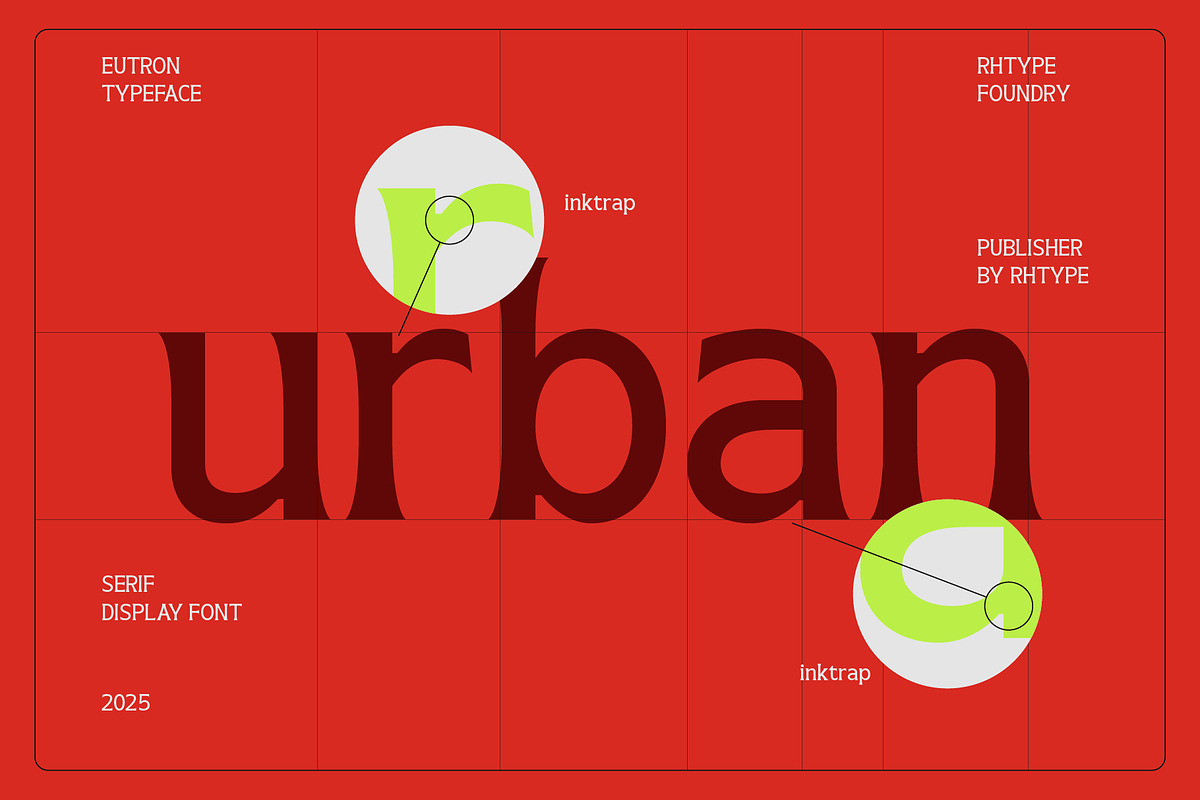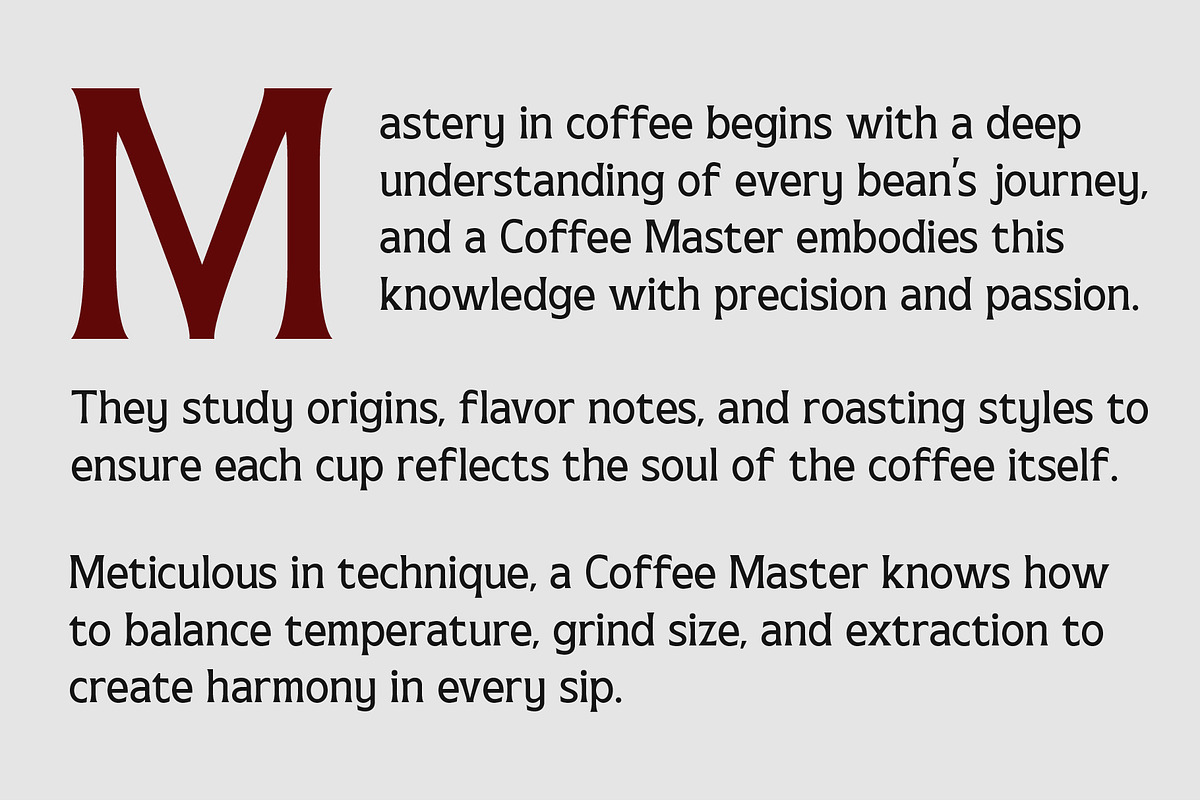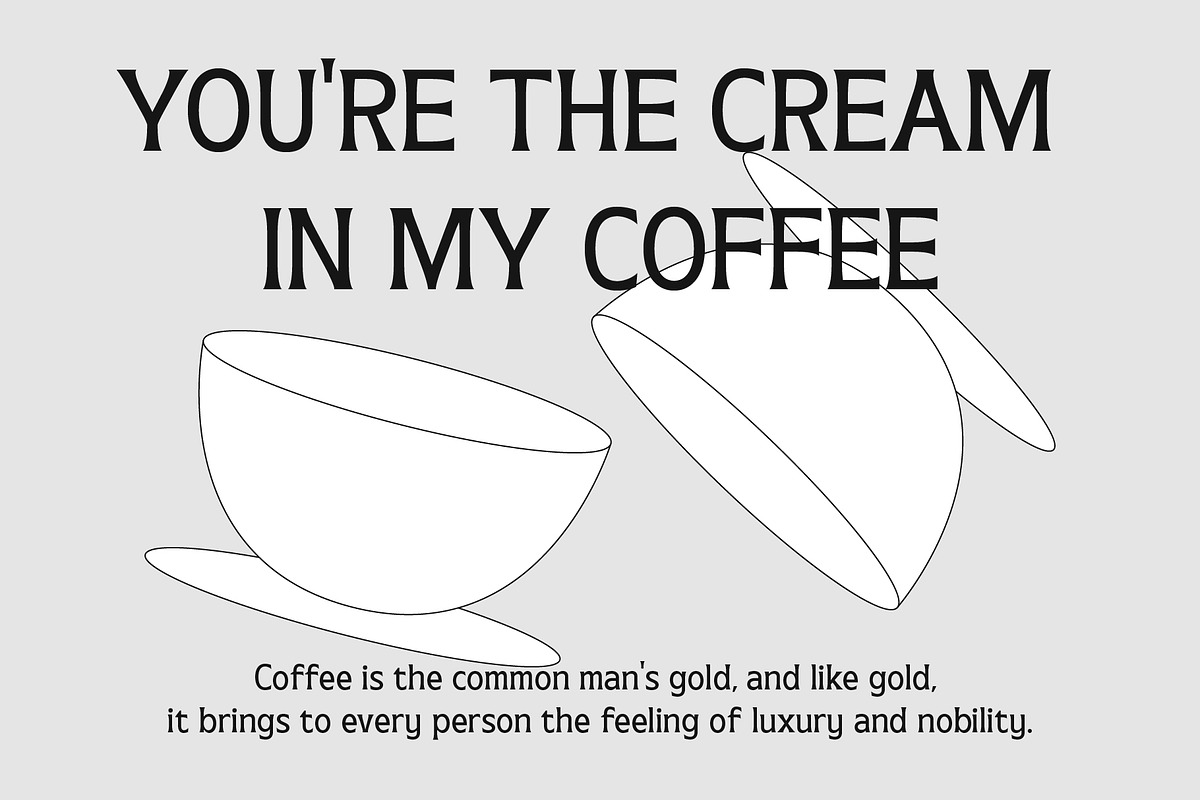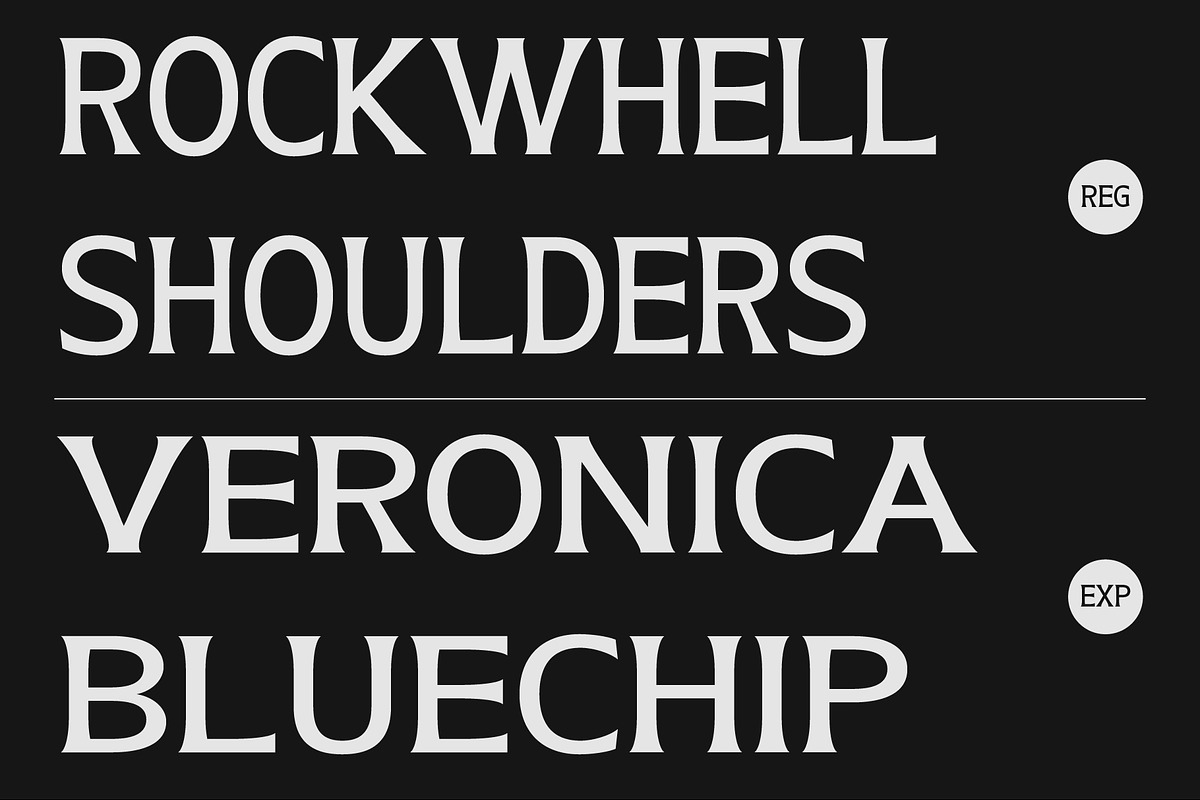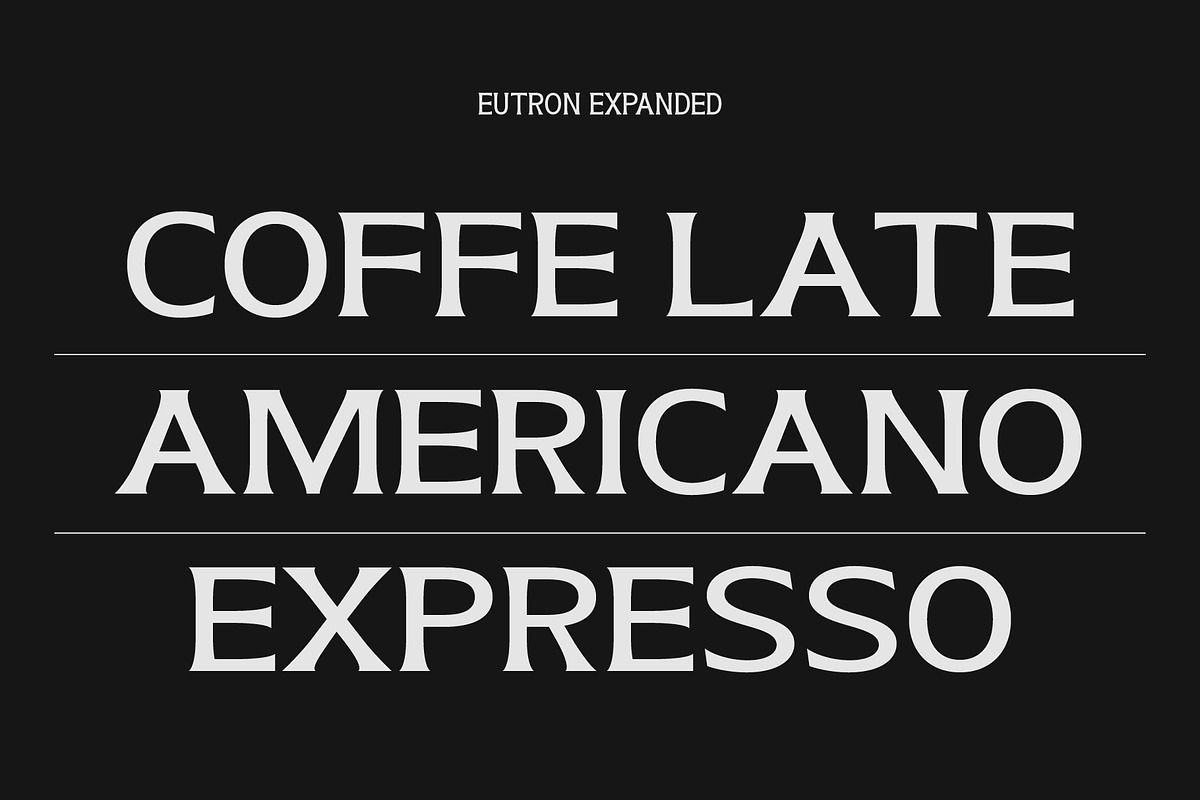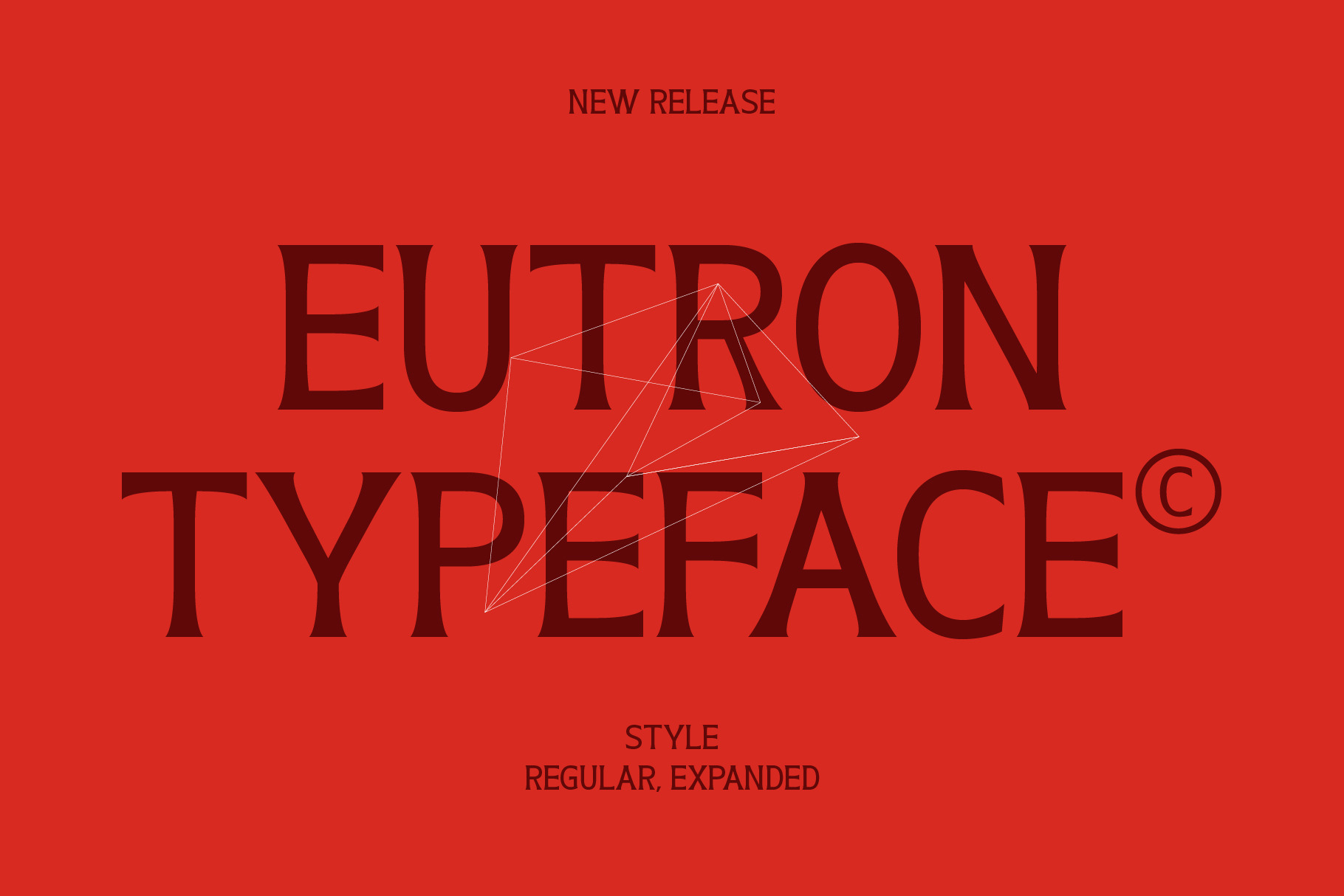
Eutron Font
Eutron Typeface is a sharp, expressive display font crafted for designers who seek a bold identity in every layout. With its sculpted curves and refined contrast, Eutron brings a modern yet timeless energy to titles, posters, branding, and editorial work.
Available in Regular and Expanded, each style delivers a distinct presence—whether you want a tight, authoritative feel or a wider, more dramatic composition. Every character is shaped with precision, making Eutron a standout choice for impactful visual storytelling.
Perfect for creative projects that demand individuality, strength, and artistic flair.